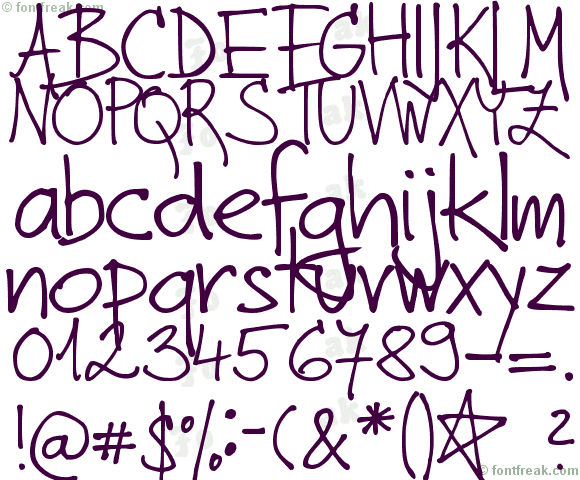
DJB Zora Prints is a distinctive handwritten typeface designed by Darcy Baldwin in 2007. This font embodies a playful and informal style, making it ideal for creative projects that require a personal touch. The strokes exhibit a moderate weight with a slightly irregular baseline, which adds to its handwritten charm. The contrast between thick and thin strokes is subtle, creating a balanced appearance that is both legible and visually engaging. The spacing is generous, contributing to an airy feel that enhances readability.
This font is exceptionally versatile, making it suitable for a variety of applications. It shines in wedding invitations, where its casual elegance can convey warmth and intimacy. Similarly, DJB Zora Prints is perfect for greeting cards, providing a friendly and approachable aesthetic. For small business branding, this font can enhance menus for cafes and restaurants, adding a unique identity that attracts customers. Additionally, it’s a great choice for social media graphics, helping content creators to craft engaging posts that stand out in crowded feeds.
The target audience for DJB Zora Prints includes graphic designers, small business owners, and content creators who seek an authentic and personable typeface. It is particularly appealing to those in the wedding and event planning industries, as well as anyone looking to create custom, heartfelt designs.
What sets DJB Zora Prints apart is its ability to blend playfulness with readability, making it a standout choice for projects that aim to connect with an audience on a personal level. If you’re looking to add a touch of warmth and creativity to your designs, the DJB Zora Prints font free download offers a unique opportunity to elevate your creative work.